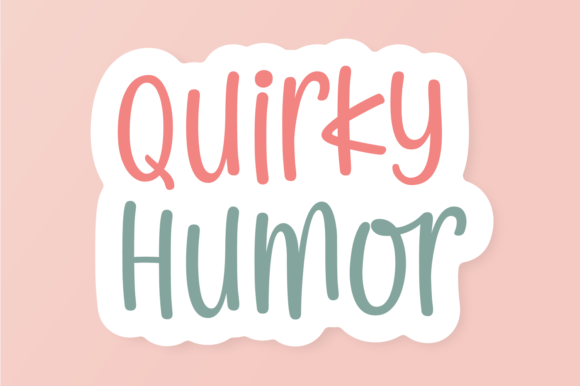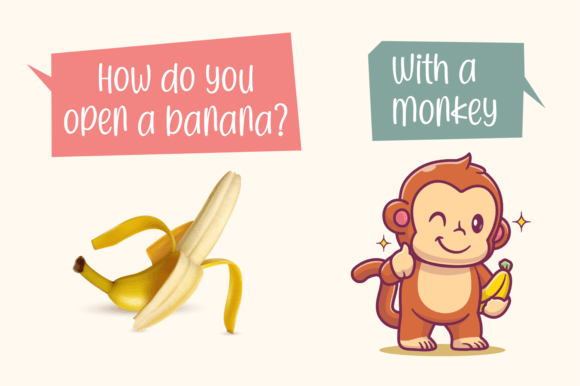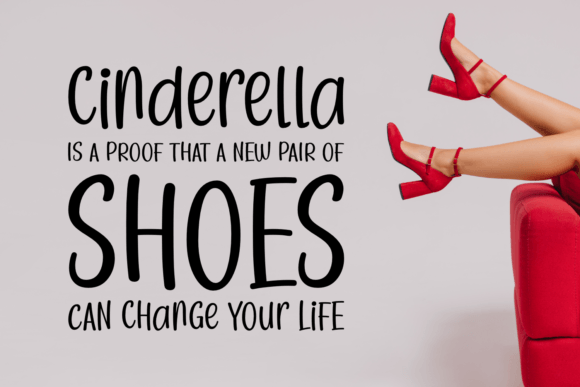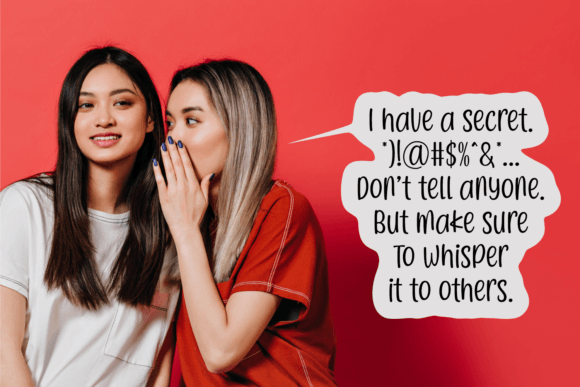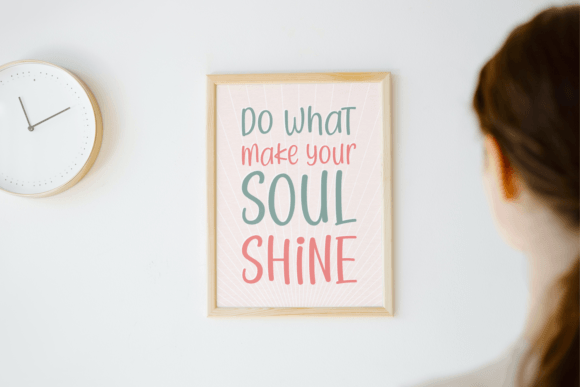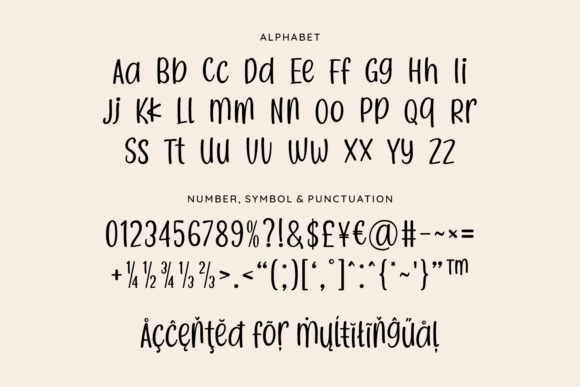
Quirky Humor Font
Add a cheerful and lighthearted vibe to your creative projects with the Quirky Humor Font download. This playful handwritten font is packed with personality and is perfect for designers looking to inject fun and friendliness into their work. With its bouncy curves, casual strokes, and easy readability, this typeface is ideal for a wide range of creative applications.
Whether you’re designing a children’s party invitation, a fun Instagram quote, or a crafty label, Quirky Humor Font adds a distinct hand-drawn charm that will make your designs pop with joy and character.
Versatile and Whimsical Style
The magic of the Quirky Humor Font download lies in its ability to adapt to a variety of cheerful and informal themes. Its slightly irregular strokes mimic real handwriting, bringing authenticity to your digital and print creations.
Perfect for:
• Craft Projects: Stickers, labels, Cricut, and Silhouette cut files
• Greeting Cards: Birthdays, holidays, thank you notes, and invitations
• Social Media Graphics: Quotes, captions, memes, and lifestyle content
• Digital Planners & Journals: Great for GoodNotes, iPad planners, and bullet journaling
• Children’s Content: Ideal for books, posters, games, and educational tools
No matter where you use it, this font brings a playful touch that feels light and inviting.
• PUA Encoded – Access all characters and alternate glyphs with ease
• Multilingual Support – Includes characters for several Western European languages
• Smooth Letter Connections – Ideal for digital and printable projects
Whether you’re printing colorful party decorations or designing digital content for social platforms, this font will look crisp and expressive.
Why Designers Love It
Designers appreciate the Quirky Humor Font download for its upbeat energy and creative versatility. It balances approachability with creativity, making it ideal for friendly branding, personal blogs, whimsical packaging, and more.
Its casual charm helps establish an instant connection with the audience, and it pairs well with sans-serif fonts or decorative elements to build contrast and style hierarchy in your designs.
If you’re looking for a font that doesn’t take itself too seriously and is full of personality, the Quirky Humor Font download is just what you need. Bring lighthearted fun to your next design with this playful handwritten font. Add it to your font library today and let your creativity shine with every curve and stroke!